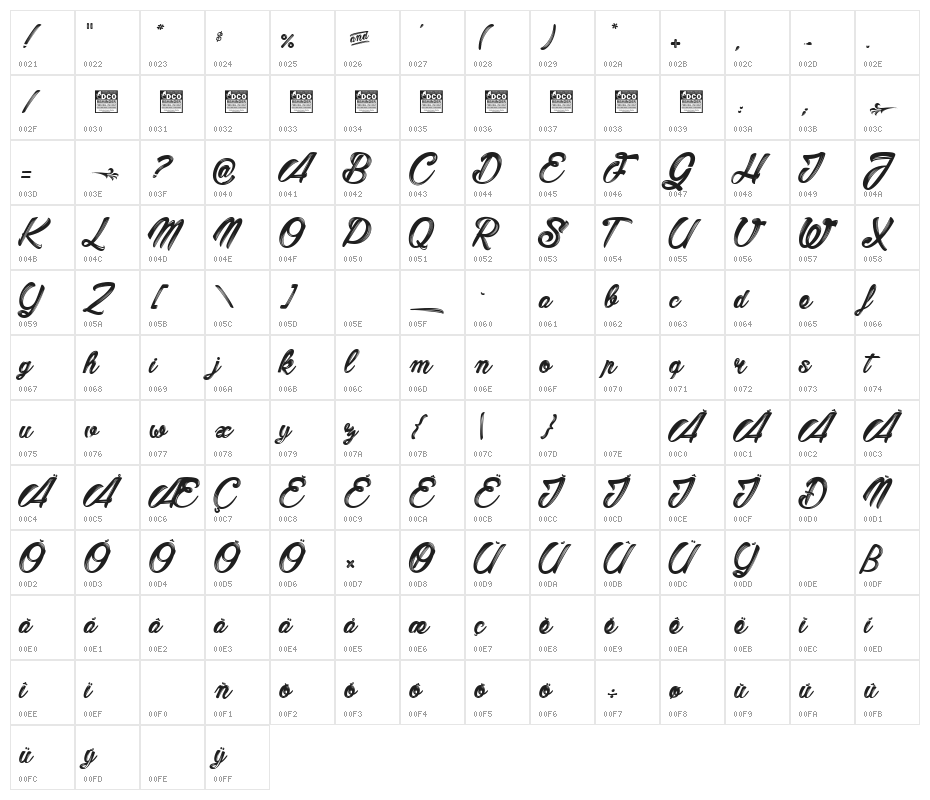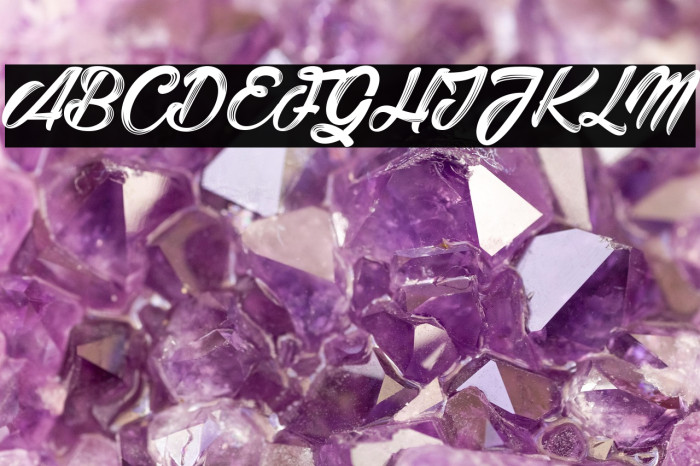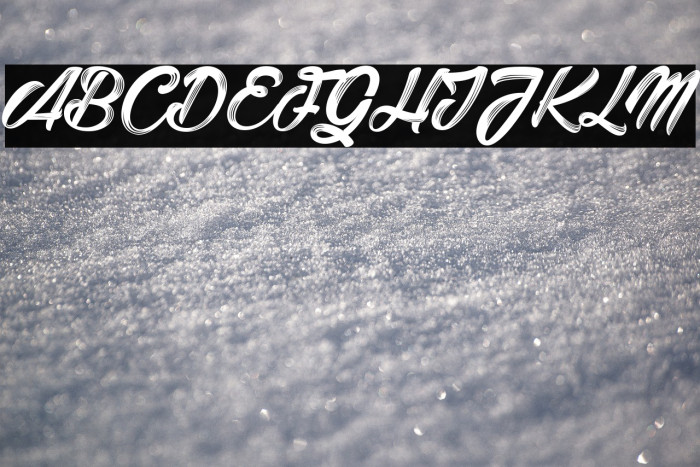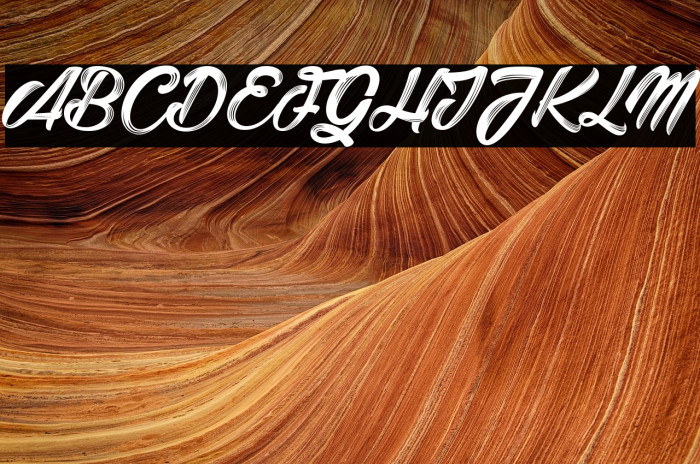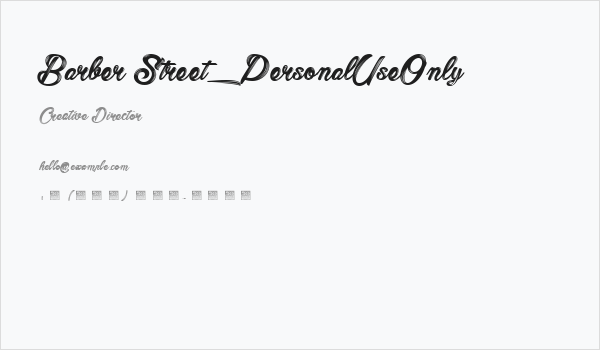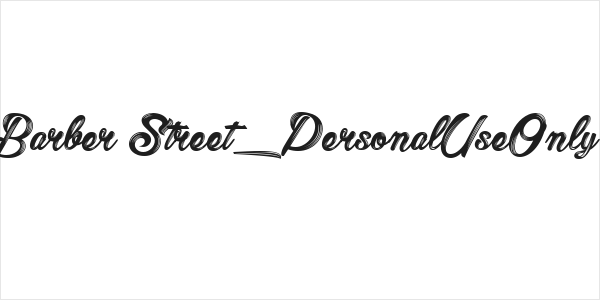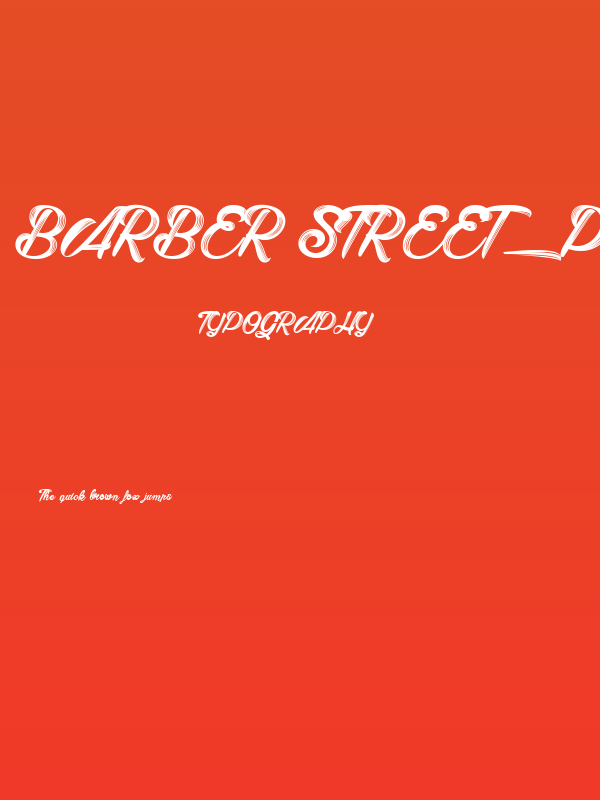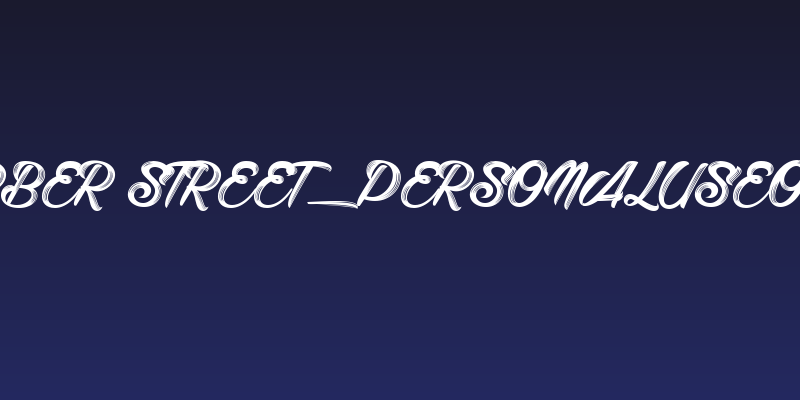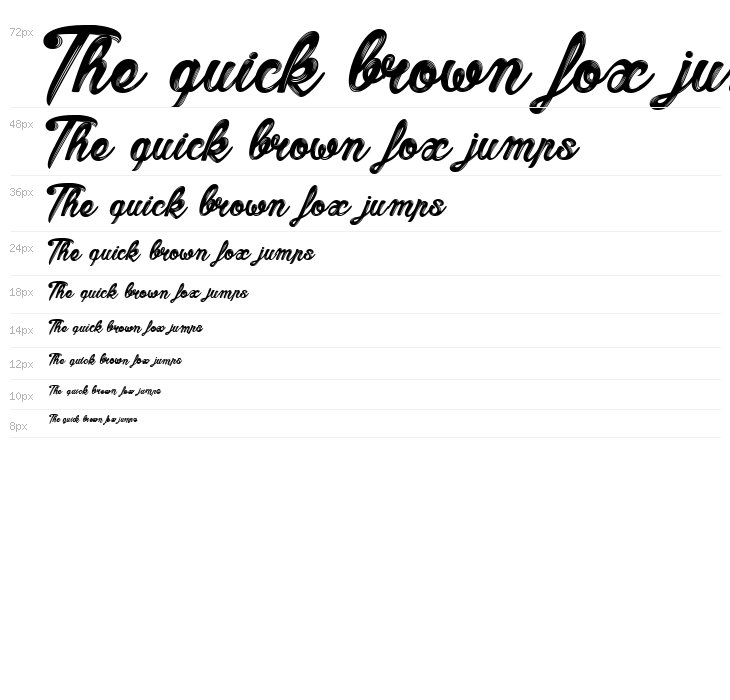
Barber Street_PersonalUseOnly Font
Barber Street_PersonalUseOnly Description
This font features a bold and dynamic script style with a distinct brush-like texture. The characters are connected, creating a flowing and cohesive look. The uppercase letters are slightly larger and more pronounced, while the lowercase letters maintain a consistent rhythm. The font includes a full set of numerals and a variety of special characters, adding versatility. The strokes are thick with a high contrast, giving it a lively and energetic appearance. This font is ideal for projects that require a personal and artistic touch.
| Proposed Projects | Ideal for branding, logos, posters, and invitations where a personal and artistic touch is desired. |